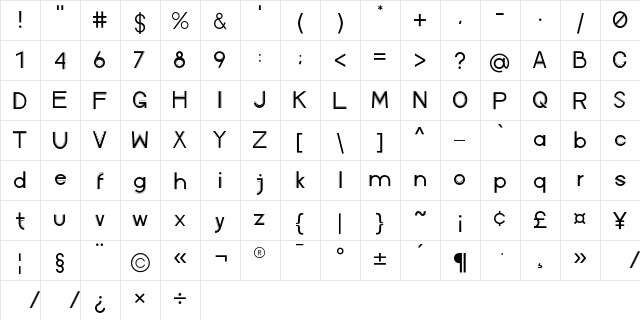
AvenueX Regular
| Designer | Simo Herold |
Design Context for AvenueX Typeface
AvenueX offers clean, dependable letterforms without strong stylistic allegiance, making it a practical choice for designers who need flexibility.